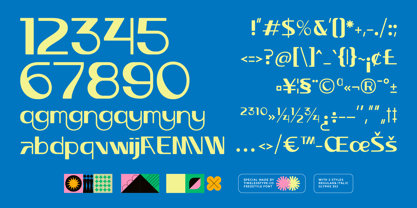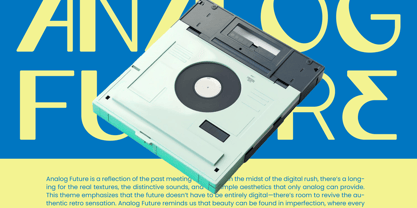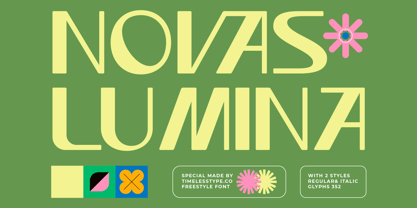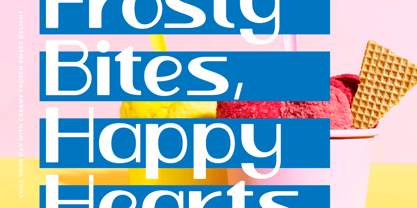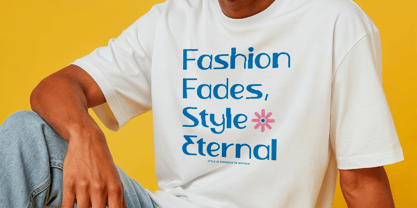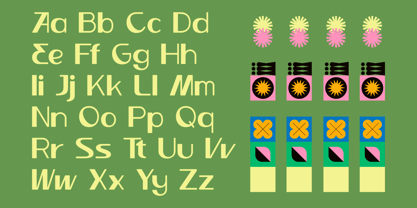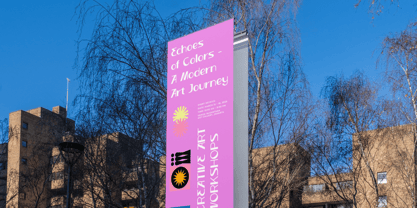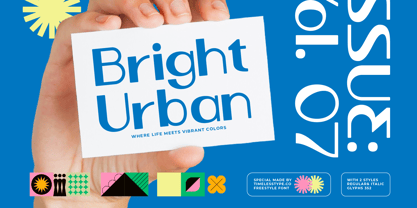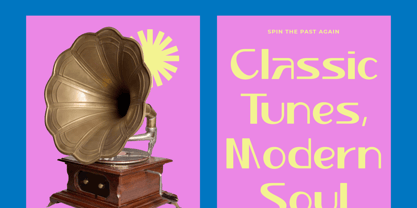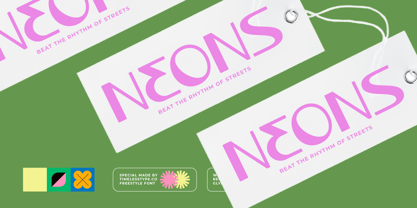
Novas Lumina
The Novas Lumina Font Family was designed by Heru Utama Putra and published by Timelesstype Studio. Novas Lumina contains 2 styles and family package options.
Novas Lumina - Freestyle Font , from Timelesstype , Suitable for any projects such as: logos, branding projects, homeware designs, product packaging, mugs, quotes, posters, shopping bags, t-shirts, book covers, name card, invitation cards, greeting cards, label, photography, watermark, special events, and all your other luxury and beautiful projects that need a Luxury Serif taste.